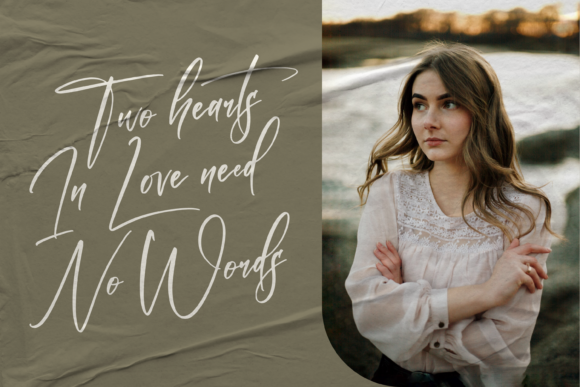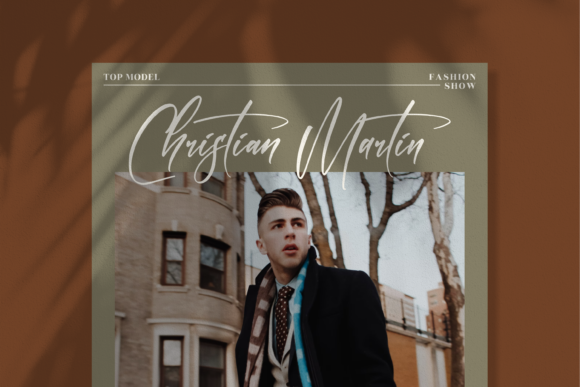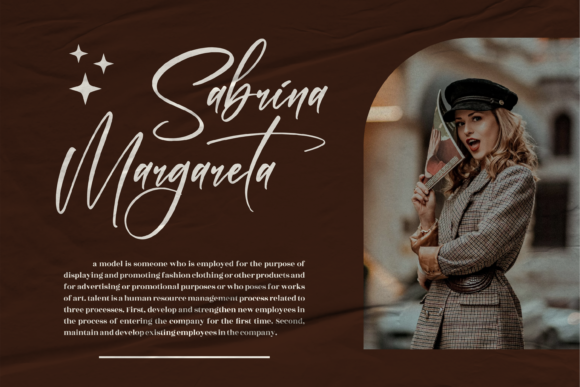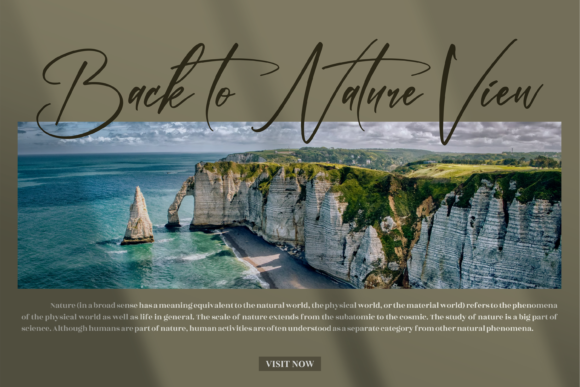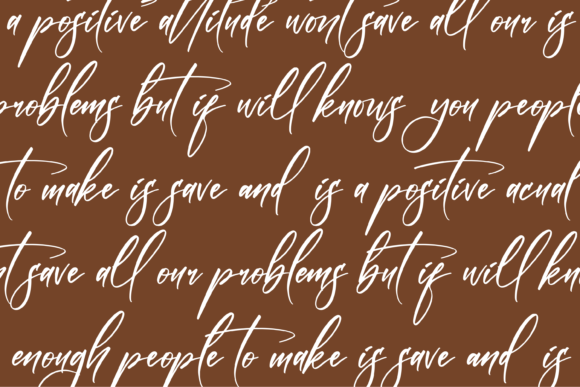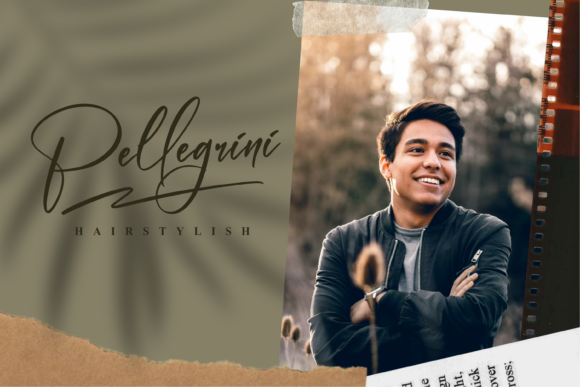
Introduction to Ramontegral Signature Font
Have you ever found yourself staring at a blank page, struggling to put your creative vision into words? I know I have. But what if you had the perfect tool to help bring your ideas to life? Enter the enchanting Ramontegral Signature Font, a magical script font that’s sure to cast a spell on your next creative project.
With its elegant touch and PUA encoding, this font is a game-changer for designers. Not only does it allow for seamless access to all glyphs and swashes, but it also provides a high-quality design resource that’s perfect for any project. Whether you’re working on a personal or professional project, the Ramontegral Signature Font is an invaluable asset that’s sure to elevate your design to the next level.
Key Features of Ramontegral Signature Font
- Unique, elegant design suitable for creative projects and personal branding.
- High-quality font with transparent background, ideal for logos, signatures, and watermarks.
- Features a large character set, including Latin, Cyrillic, and Greek alphabets, ensuring versatility in use.
- Perfect for creating a professional signature, logo, or watermark for personal or business use.
Honest Review: Ramontegral Signature Font
I recently had the chance to play around with the Ramontegral Signature Font, and I’m excited to share my honest thoughts with you. As a designer, I’m always on the lookout for high-quality fonts to add some extra flair to my creative projects.
What works well with this font is its unique and elegant design. It’s perfect for adding a touch of sophistication to your designs, and it pairs well with a transparent background to really make it stand out. I also appreciate that it’s a free download, making it an excellent design resource for anyone looking to elevate their projects without breaking the bank.
- ✨ Unique and elegant design
- ✨ Perfect for adding a touch of sophistication to designs
One thing to keep in mind is that the font may not be suitable for very large text sizes, as the details can get lost. Additionally, the font is quite bold, so it may not be the best choice for projects that require a more subtle look.
Overall, I think the Ramontegral Signature Font is a great addition to any designer’s toolkit. With its unique design and high-quality feel, it’s a great choice for creative projects where you want to make a statement.
- ⚠️ May not be suitable for very large text sizes
- ⚠️ Quite bold, may not be suitable for projects that require a more subtle look
Tips for Getting the Most Out of Ramontegral Signature Font
For the best results, use the Ramontegral Signature Font in conjunction with a high quality design resource, such as a high resolution image or a professional design template. This will ensure that your design project looks its best.
The Ramontegral Signature Font is perfect for creative projects, such as logos, business cards, and brochures. It is also great for personal projects, such as social media graphics and blog posts.